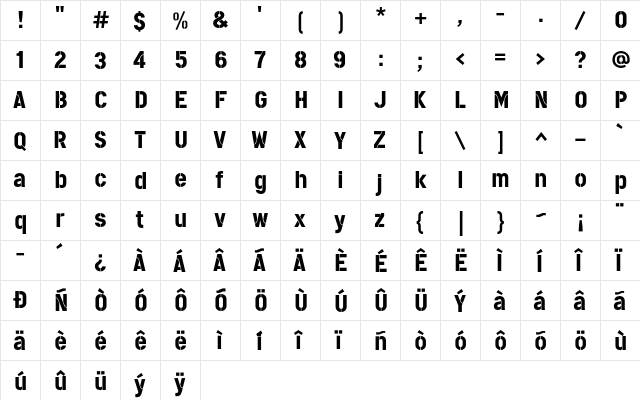
CargoPuma Regular
Design Context for CargoPuma Typeface
CargoPuma offers clean, dependable letterforms without strong stylistic allegiance, making it a practical choice for designers who need flexibility.
Pro Tip: Pair CargoPuma with a font of contrasting weight or personality to build a more expressive typographic hierarchy.